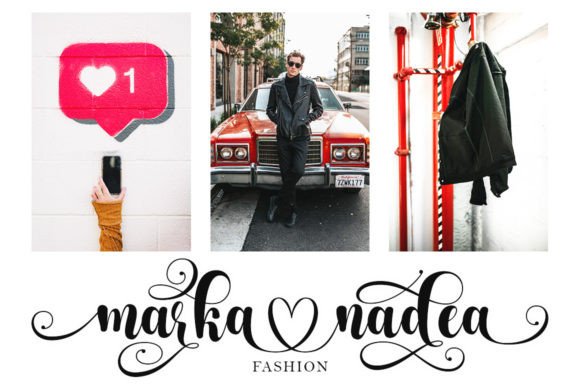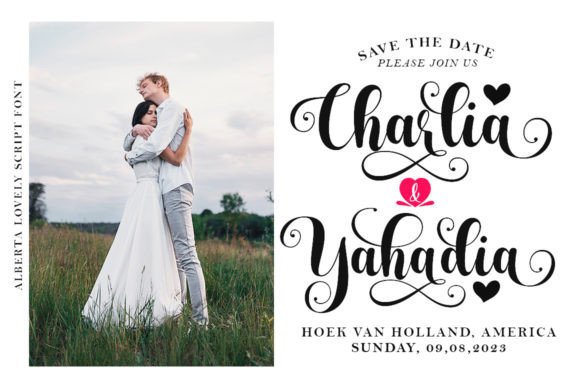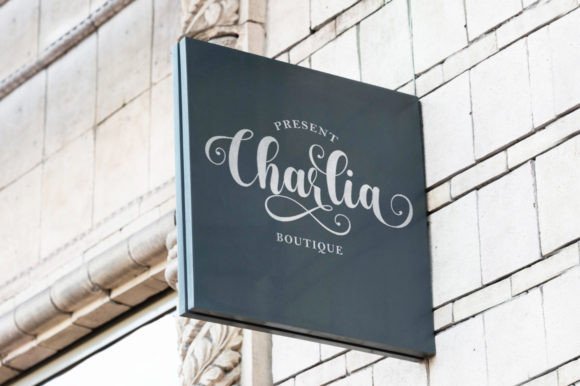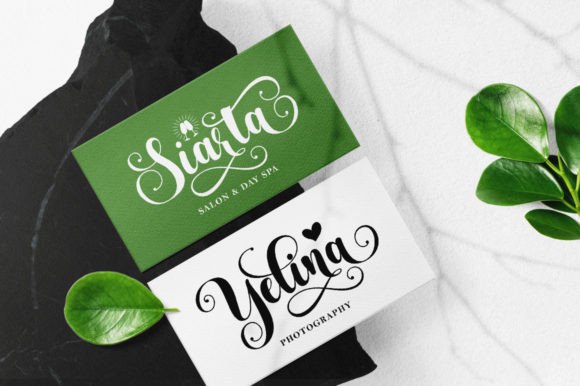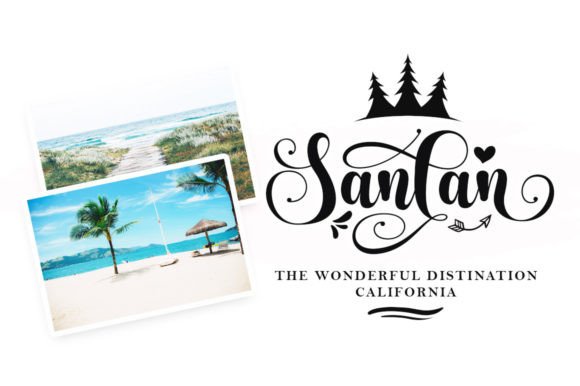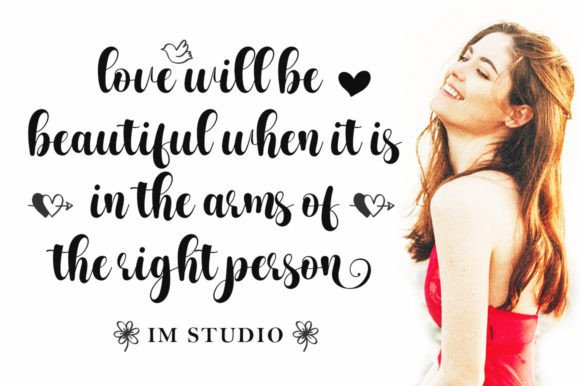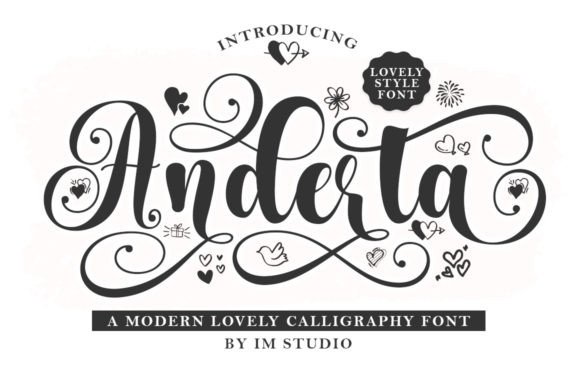
Introducing Anderta Font: Elevate Your Designs with Elegance and Sophistication
Are you on the hunt for a font that exudes smoothness, elegance, and a touch of timeless sophistication? Look no further than Anderta Font, a stunning calligraphy font designed to transform your favorite projects into spectacular designs. With its unique and flowing style, Anderta is sure to capture your heart and become your go-to choice for all your creative endeavors.
The Unique Charm of Anderta Font
Anderta Font stands out from the crowd with its completely different and timeless style. Its smooth, elegant lines and flowing curves are perfect for designers and crafters looking to add a touch of sophistication to their work. Whether you’re creating wedding invitations, branding materials, or digital content, Anderta Font is the ideal choice to make your designs shine.
One of the best features of Anderta Font is its PUA (Private Use Area) encoding. This means that you can access all the glyphs and sweeps with ease, giving you complete creative control over your designs. With PUA encoding, you can effortlessly navigate through the font’s extensive character set, including ligatures, swashes, and alternates, to create truly unique and eye-catching designs.
Anderta Font is a versatile font that’s perfect for a wide range of design applications. Whether you’re a professional designer or a crafter looking to add a personal touch to your projects, Anderta Font is an excellent choice. Its elegant and sophisticated style makes it ideal for:
- Digital content creation, such as blog headers and social media graphics
- Signage and display design
- Any project that requires a touch of elegance and sophistication
Why Choose Anderta Font?
So, what sets Anderta Font apart from other calligraphy fonts on the market? Here are just a few reasons why designers and crafters love Anderta:
- Unique and timeless style: Anderta Font boasts a distinctive style that’s both modern and classic, making it perfect for designers looking to create unique and eye-catching designs.
- Elegant and sophisticated: Anderta Font exudes elegance and sophistication, making it ideal for high-end branding, wedding designs, and other applications where a touch of luxury is required.
- PUA encoded for easy access: With PUA encoding, you can easily access all the glyphs and sweeps, giving you complete creative control over your designs.
- Versatile and adaptable: Anderta Font is perfect for a wide range of design applications, from digital content creation to signage and display design.
Get Creative with Anderta Font
Ready to fall in love with Anderta Font? With its smooth, elegant lines and flowing curves, Anderta is the perfect choice for designers and crafters looking to elevate their designs. Whether you’re creating a stunning wedding invitation or a bold branding campaign, Anderta Font is sure to impress.